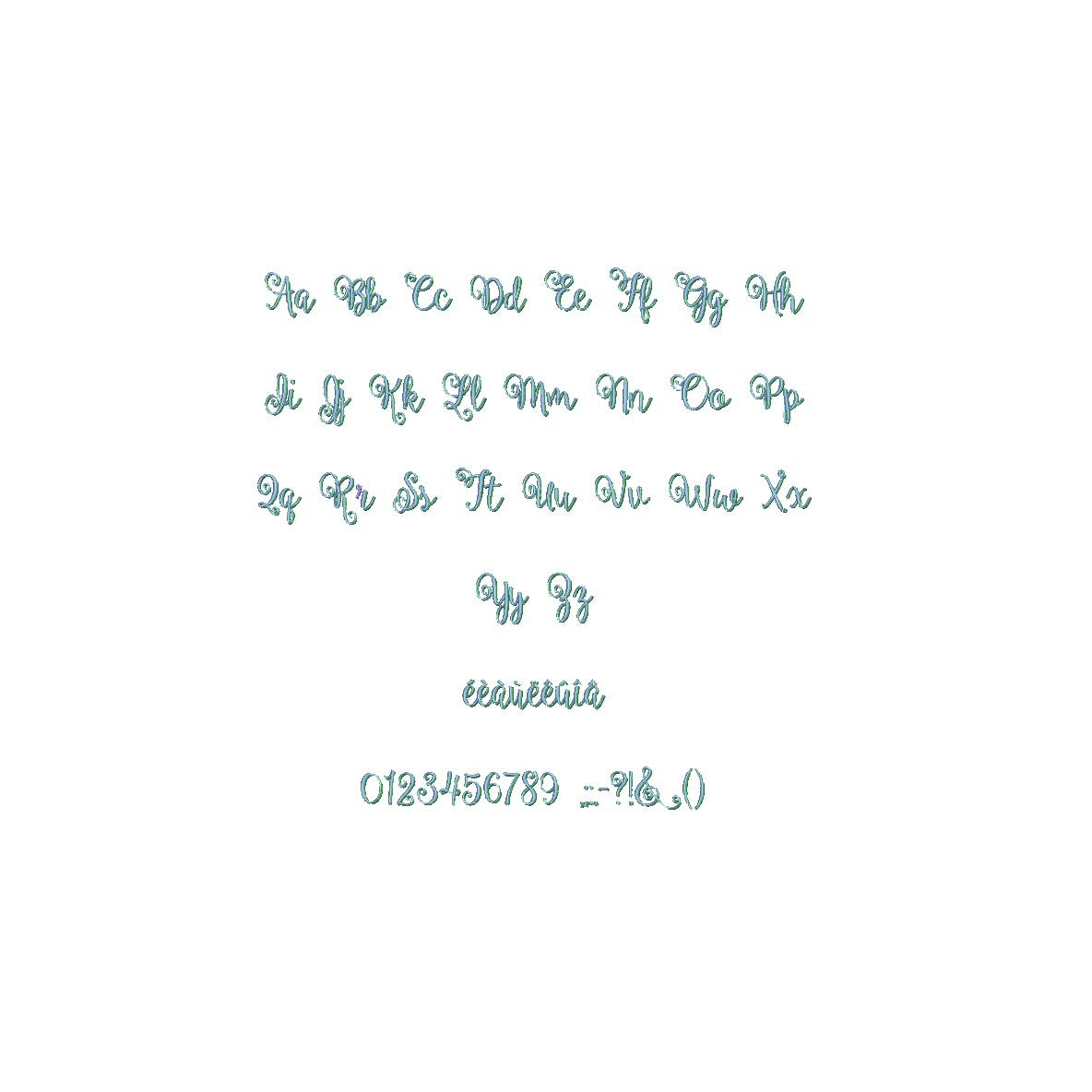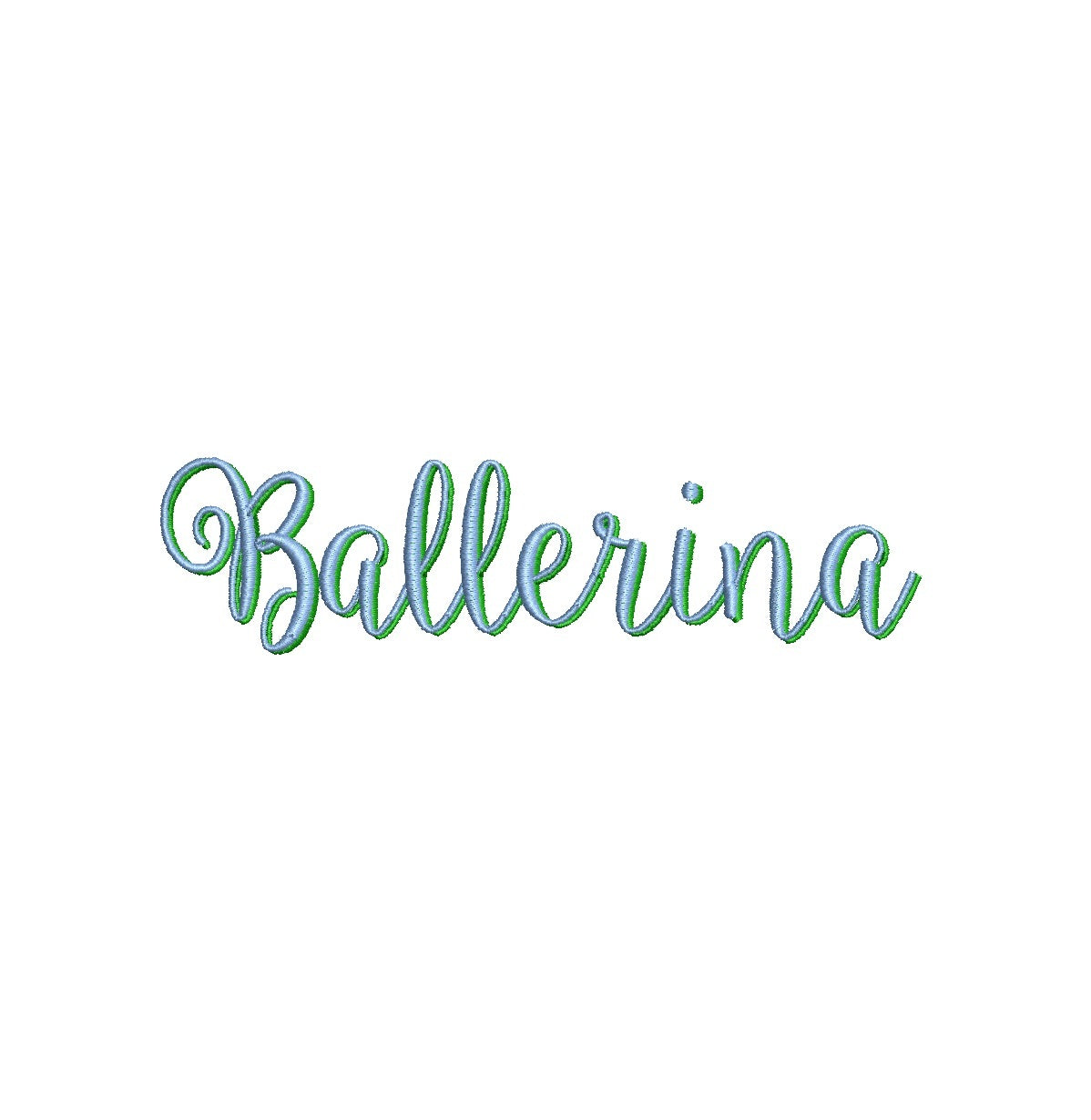
Elevate your creative endeavors with the enchanting Ballerina Shadow ESA font, now seamlessly compatible with Wilcom Studio e4.5.6 and Hatch 3 versions and up. This font infuses a graceful aura into your designs, combining intricate shadows with elegant lines. Achieve an exquisite balance of contemporary style and timeless beauty that captivates onlookers. Streamline your design process and attain flawless outcomes by utilizing this font with industry-leading software. Elevate your projects with the compatibility of Ballerina Shadow ESA font, and let your designs dance with charm and sophistication. Elevate your creative journey today!